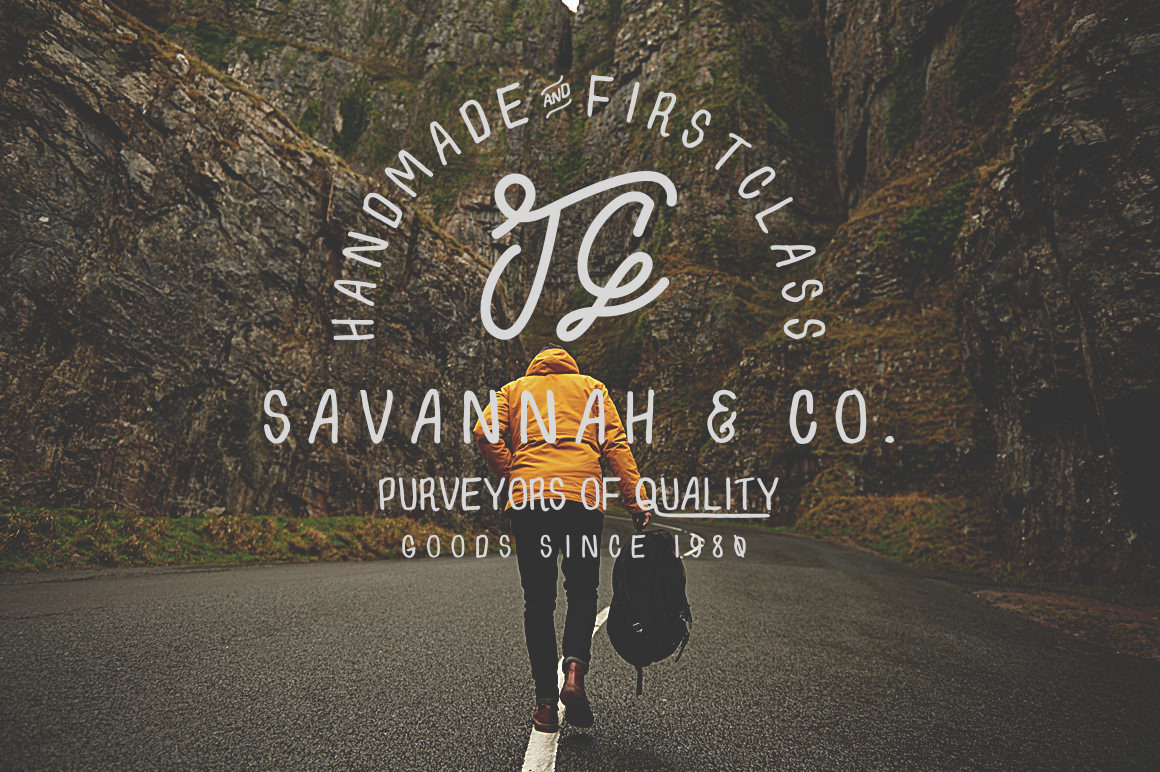
Savannah & Co ~ Hand Drawn Font
Savannah & Co is a hand drawn typeface, our first font available from Greenhouse Supply Co. by Justin Greene. Great for Logos, Stationary, Posters, Apparel, literally everything design related. It includes alternate ligatures for several of the uppercase characters, just to achieve that Vintage signage or Moto inspired feel.
As with anything made by Greenhouse, expect only the best, from the kerning to the alternates, down to the smallest details. The alternate uppercase characters have a set length, so make sure to keep that in mind as you may have to adjust. Made for designers, by designers.